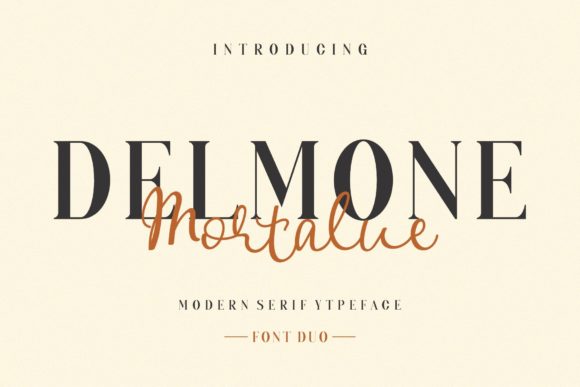
Introducing Delmone & Mortalue Font: Elevate Your Design with Elegance and Friendliness
In the realm of typography, fonts play a pivotal role in conveying messages, expressing emotions, and creating lasting impressions. Among the myriad of fonts available, Delmone & Mortalue stands out as a remarkable duo that combines the elegance of script with the sophistication of serif fonts. This comprehensive guide will delve into the features, applications, and benefits of using Delmone & Mortalue in your design projects, ensuring you understand why it’s an ideal choice for adding a branded yet friendly feel to your creations.
What is Delmone & Mortalue Font?
Delmone & Mortalue is not just any font; it’s a duo that includes both a script and a serif font, meticulously crafted to work harmoniously together or stand out individually. This versatility makes it an excellent addition to any designer’s toolkit. Whether you’re working on a branding project, a website, a print material, or any digital content, Delmone & Mortalue offers the flexibility to enhance your project’s aesthetic appeal.
Key Features of Delmone & Mortalue
- Dual Font Styles: The package includes two distinct font styles – a beautiful script font and a classic serif font. This duo can be used together for a dynamic look or separately for a consistent brand voice.
- Elegant and Friendly: Delmone & Mortalue is designed to add a touch of elegance and friendliness to your projects. The script font brings a personal and approachable feel, while the serif font adds sophistication and reliability.
- High Versatility: These fonts are highly versatile and can be applied across various design projects, including logos, websites, brochures, posters, and more.
- Easy to Read: Despite its elegant design, Delmone & Mortalue ensures readability, making it suitable for body text as well as headings.
- Unique Character Set: The fonts come with a comprehensive character set, including support for multiple languages, making it a great choice for global brands.
Applications of Delmone & Mortalue Font
The applications of Delmone & Mortalue are vast and varied. Here are some scenarios where this font duo shines:
- Branding and Logos: Create a memorable brand identity with the script font for a personal touch or the serif font for a professional look.
- Website Design: Enhance your website’s typography with Delmone & Mortalue, making it more engaging and user-friendly.
- Print Materials: From business cards to billboards, Delmone & Mortalue leaves a lasting impression on print.
- Digital Content: Elevate your digital content, such as eBooks, blogs, and social media posts, with elegant and readable typography.
Benefits of Using Delmone & Mortalue
Choosing Delmone & Mortalue for your projects comes with numerous benefits:
- Consistency: Using fonts from the same family ensures consistency across your projects, enhancing your brand’s professional image.
- Creativity: The combination of script and serif fonts encourages creativity and experimentation, allowing you to find the perfect look for your project.
How to Use Delmone & Mortalue Effectively
To maximize the potential of Delmone & Mortalue, consider the following tips:
- Mix and Match: Combine the script and serif fonts to create visual interest. Use the script font for headings and the serif font for body text, or vice versa.
- Play with Sizes: Experiment with different font sizes to establish a hierarchy and draw attention to key information.
- Adjust Line Spacing: Ensure readability by adjusting line spacing according to the font size and style used.
- Color Matters: Choose colors that complement your brand and enhance the overall aesthetic of your design.
Delmone & Mortalue is more than just a font duo; it’s a design solution that brings elegance, friendliness, and professionalism to your projects. With its versatility, readability, and aesthetic appeal, it’s an excellent choice for designers looking to elevate their work. Whether you’re creating a brand identity, designing a website, or crafting digital content, Delmone & Mortalue is sure to make a positive impact. Embrace the power of typography with Delmone & Mortalue and watch your designs transform into memorable experiences.